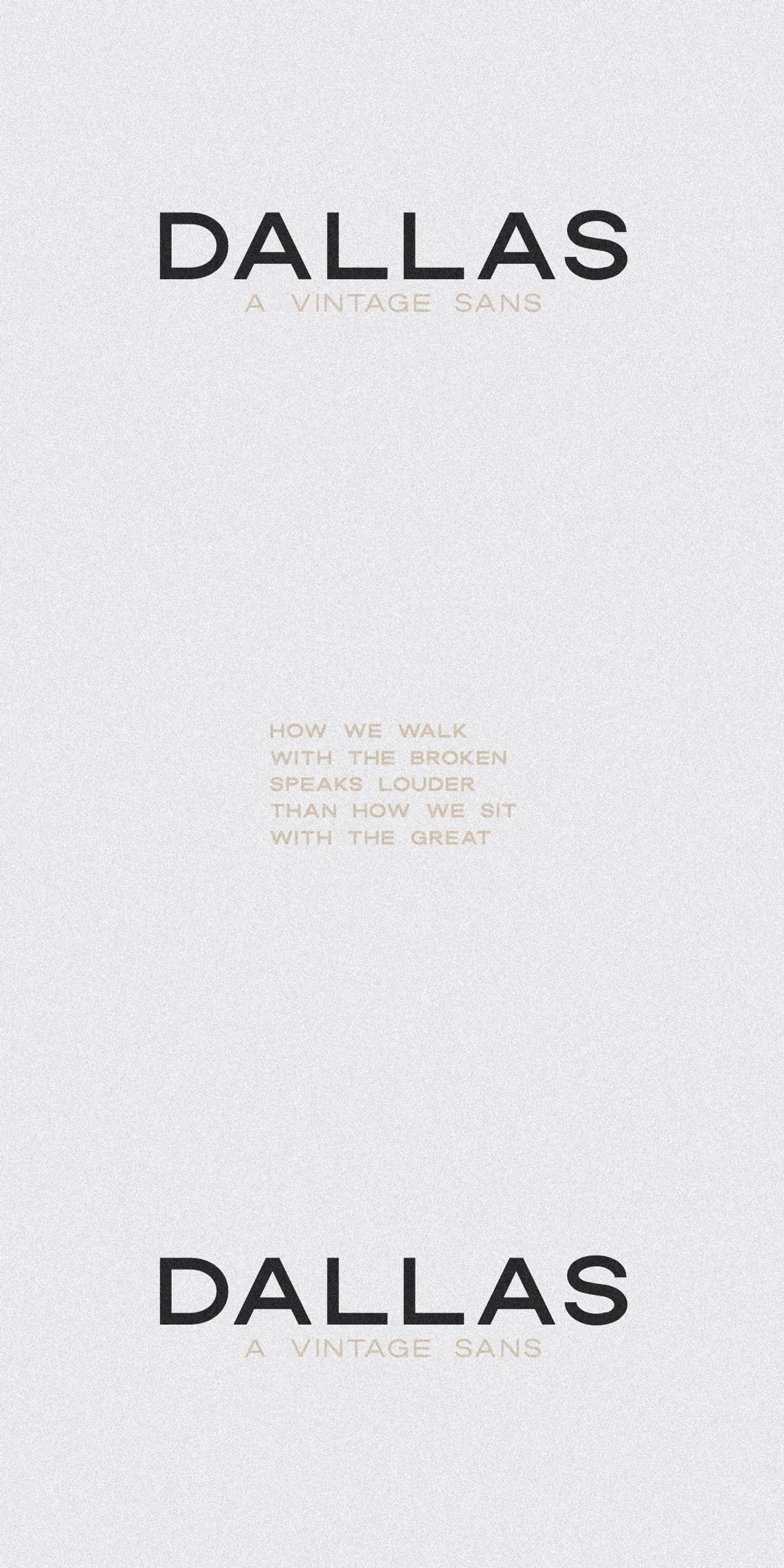
Introducing Dallas—a fiercely versatile, all-caps vintage sans serif typeface that’s quickly becoming a design favorite. With its clean lines, retro soul, and modern adaptability, Dallas delivers instant impact across a wide range of creative projects. Whether you’re crafting a powerful brand identity, designing a striking poster, or building engaging web content, Dallas brings sophistication, strength, and timeless appeal to your work.
Why Dallas Stands Out in the World of Typography
Dallas isn’t just another font—it’s a design statement. Inspired by the clean geometry of mid-20th-century signage and the bold aesthetic of vintage advertising, it combines the crispness of a sans serif with the character of hand-drawn inspiration. Its all-caps structure ensures perfect consistency in headlines, logos, and display typography, while the subtle imperfections in stroke weight add just the right touch of authenticity.
But what truly sets Dallas apart is its five distinct weights and styles, giving you unmatched creative control:
- Dallas Light – For elegant, minimalist layouts and subtle emphasis.
- Dallas Regular – The go-to choice for clean, professional headlines and body text.
- Dallas Bold – Turn heads with maximum visibility and presence.
- Dallas Outline Thin – Use for delicate, layered looks or modern negative-space designs.
- Dallas Outline Thick – Perfect for high-impact graphics, textures, and dramatic effects.
Combine the solid and outline styles to create layered, dimensional designs that pop—ideal for modern branding that blends retro charm with contemporary polish.
Full Feature Set for Maximum Versatility
- All Caps Design: Consistent, bold presence with no lowercase distractions—perfect for impactful headlines.
- 5 Distinct Weights: Craft perfect contrast and hierarchy in your layouts through strategic weight pairing.
- Complete Character Set: Includes uppercase letters, numbers, punctuation, and special symbols for full design freedom.
- Multi-Lingual Support: Full Latin, Greek, and Cyrillic character coverage ensures global usability across diverse projects.
- Designer-Friendly: Smooth curves, consistent spacing, and clean outlines ensure professional-grade results every time.
Ideal Applications for Dallas Typography
Dallas thrives where bold communication meets creative vision. Its sharp, vintage-inspired look makes it especially powerful in contexts that demand instant recognition, confidence, and style.
Perfect For:
- Logo & Brand Identity: Build strong, memorable brands for startups, fashion lines, cafes, and creative studios—Dallas makes your logo unforgettable.
- Printed Materials: Use on business cards, packaging, flyers, posters, and brochures to command attention with vintage flair and modern clarity.
- Campaigns & Advertising: Stand out in print and digital ads with headline text that grabs attention and delivers a lasting impression.
- Editorial & Magazine Design: Add retro energy to covers, section dividers, and pull quotes with a font that feels both classic and current.
Designed with Real-World Use in Mind
Dallas is built not just for beauty, but for performance. Its optimized outlines ensure consistent rendering at any size, and its balanced spacing prevents overcrowding—no matter how bold or layered your design gets.
Make Every Project Legendary with Dallas
Dallas isn’t just a font. It’s a toolkit for making your designs feel intentional, powerful, and deeply memorable. Whether you’re working on a simple tagline or a full branding suite, this typeface gives you the tools to create work that stands the test of time.